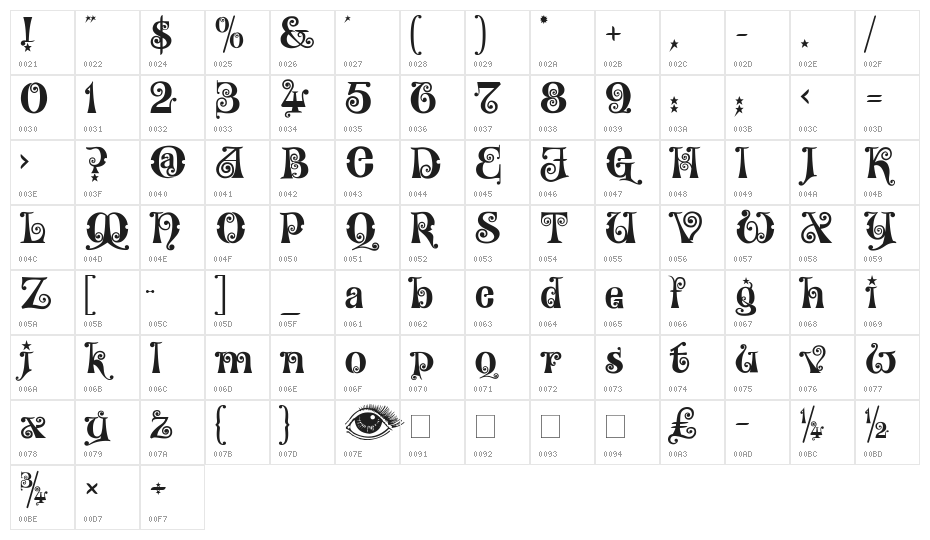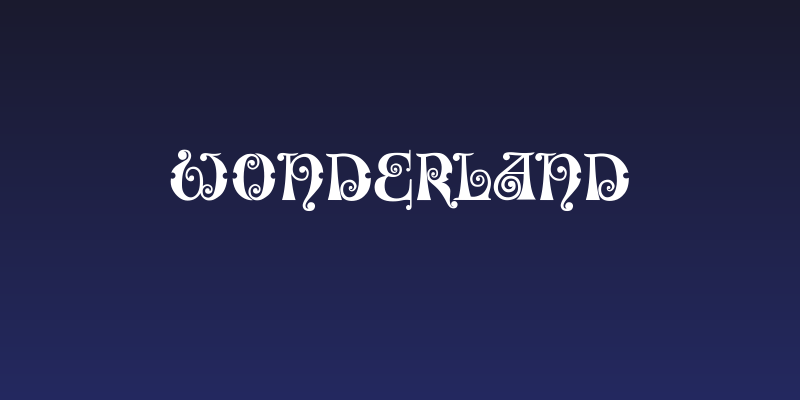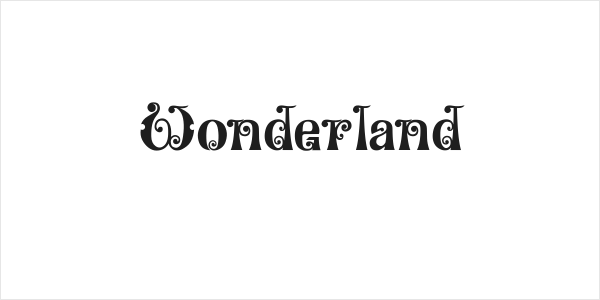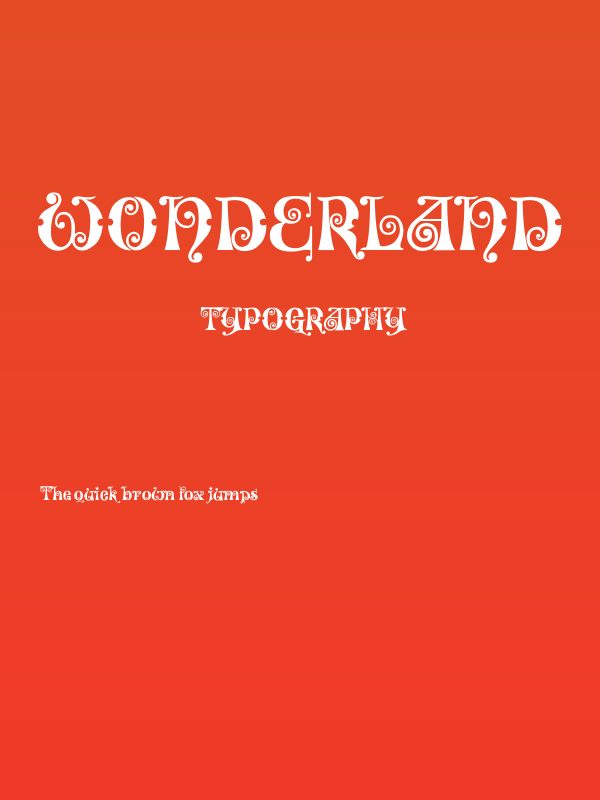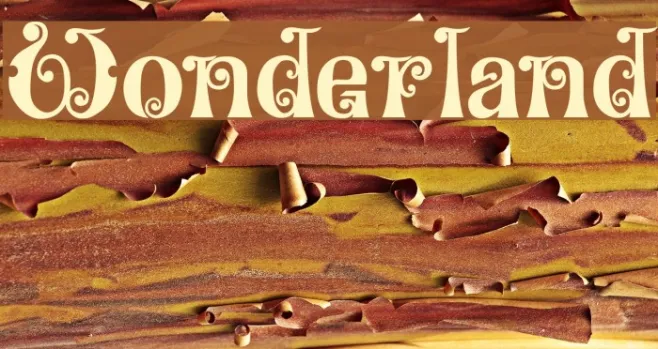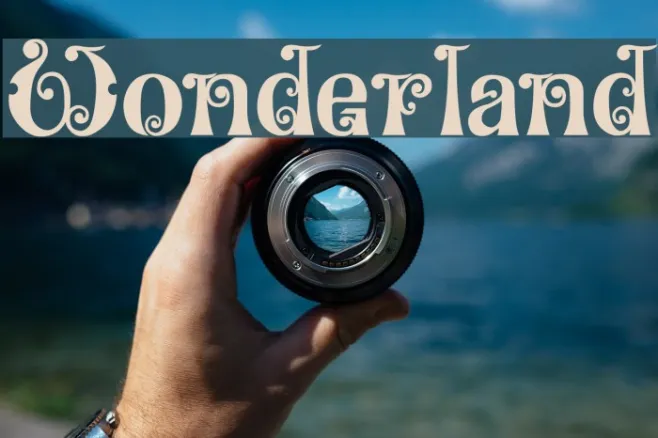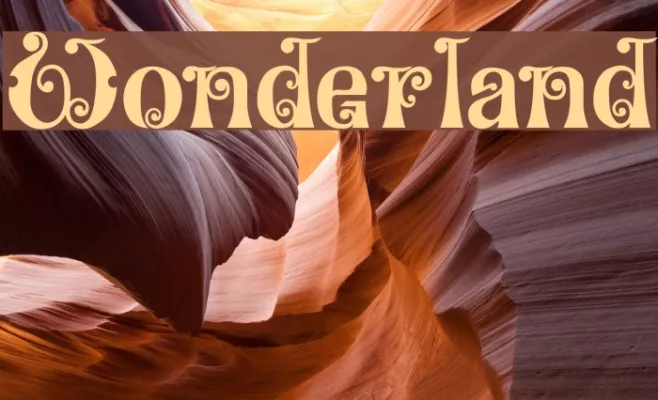
Wonderland Font
Wonderland Description
This font is a whimsical and decorative typeface that features intricate swirls and embellishments on each character. The uppercase letters are bold and ornate, with unique flourishes that add a playful and magical touch. The lowercase letters maintain the same decorative style, ensuring consistency throughout the text. Numbers and special characters are equally adorned, making them stand out with their artistic flair. This font is perfect for creating a fantasy or fairy-tale atmosphere, with its high contrast and elaborate design elements.
| Proposed Projects | Ideal for fantasy-themed projects, children's book covers, greeting cards, and playful branding. |